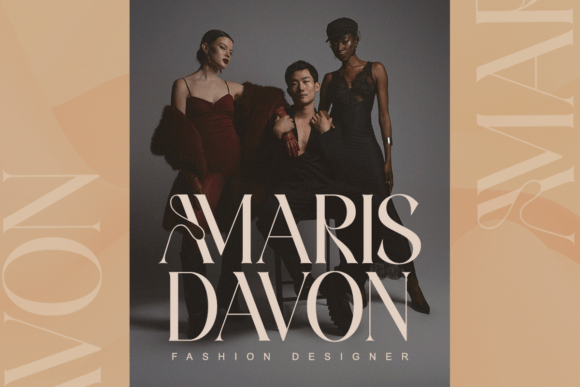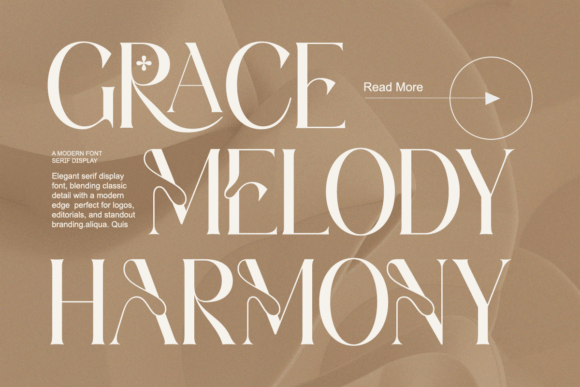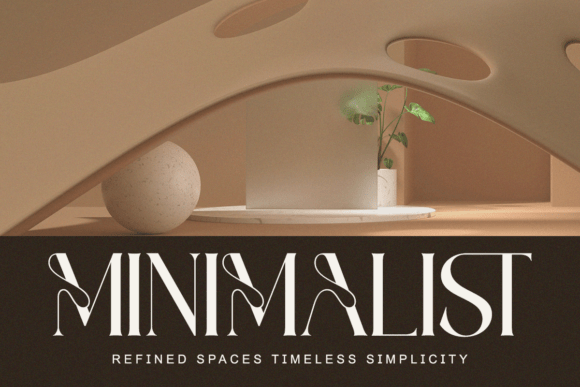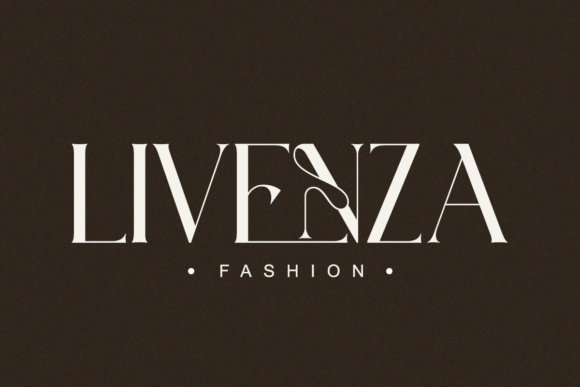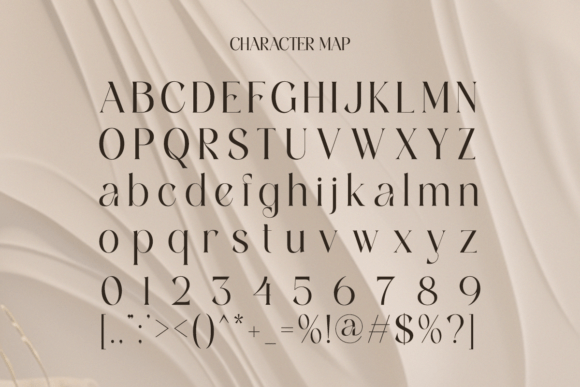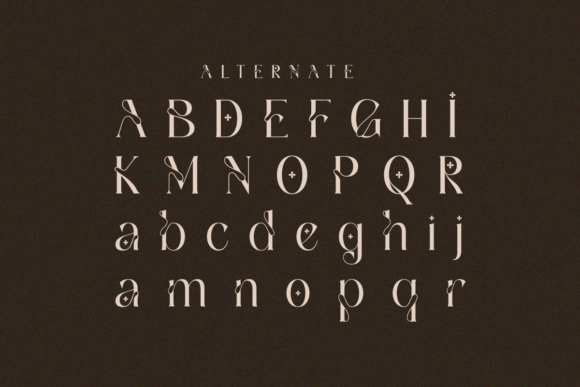
Blastigo Font: Elevate Your Design with Sculptural Elegance
In the realm of typography, few fonts manage to strike a balance between sophistication and artistic flair. Blastigo, a modern font serif display, achieves just that with its commanding presence and geometric grace. This stunning typeface redefines elegance with its dramatic high-contrast serifs, clean vertical stress, and exceptional negative space. But what truly sets Blastigo apart is its unique blend of traditional and artistic elements, making it a standout choice for designers and crafters seeking to elevate their projects.
Unpacking the Unique Features of Blastigo
Blastigo’s design is characterized by several key features that contribute to its distinctive look and feel. The font boasts:
- Dramatic High-Contrast Serifs: These add a touch of luxury and sophistication, giving Blastigo its commanding presence.
- Clean Vertical Stress: This feature contributes to the font’s elegant and refined appearance.
- Exceptional Negative Space: The careful use of negative space enhances the font’s readability and aesthetic appeal.
- Swirling, Stylized Ligatures: Found in certain letter pairings, these elegant swoops and loops transform simple text into pieces of art.
The Art of Ligatures in Blastigo
One of the most striking aspects of Blastigo is its use of swirling, stylized ligatures. These unique letter pairings feature elegant swoops and loops that add an artistic touch to any text. This feature not only enhances the visual appeal of the font but also allows designers to create truly bespoke pieces. Whether it’s for luxury brands, high-fashion editorials, or contemporary art installations, Blastigo’s ligatures provide a level of customization and flair that is hard to match.
Applications of Blastigo
Given its powerful display weight and sculptural elegance, Blastigo is perfectly suited for projects that demand a strong, fashionable, and architectural appeal. Some ideal applications for Blastigo include:
- Luxury Brands: Use Blastigo to inject a sense of premium, artistic refinement into your branding.
- High-Fashion Editorials: Make a bold statement with Blastigo’s commanding presence and elegant ligatures.
- Contemporary Art Installations: Blastigo’s unique blend of modernity and artistry makes it a natural fit for installations and exhibitions.
- Book Covers: Add a touch of sophistication and elegance to your book covers with Blastigo’s dramatic serifs and stylized ligatures.
- Exclusive Website Headers: Use Blastigo to create a lasting impression with website headers that exude luxury and refinement.
Blastigo is more than just a font – it’s a statement piece. With its sculptural elegance, commanding presence, and artful, geometric grace, this modern font serif display is poised to elevate any project. Whether you’re a designer, crafter, or simply someone who appreciates the art of typography, Blastigo offers a world of creative possibilities. So why settle for ordinary when you can make a bold statement with Blastigo?